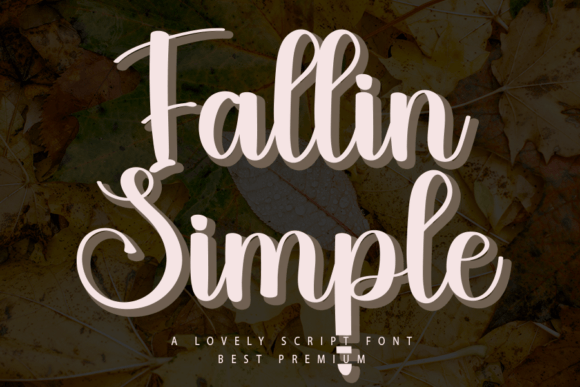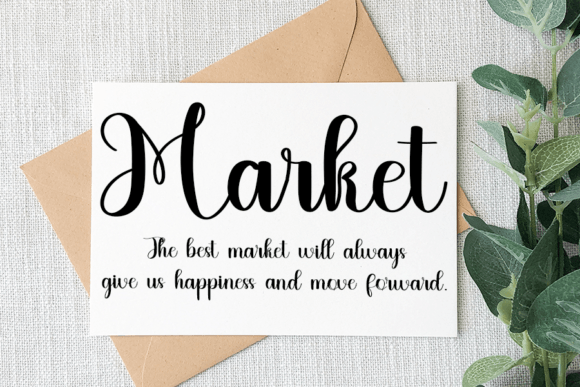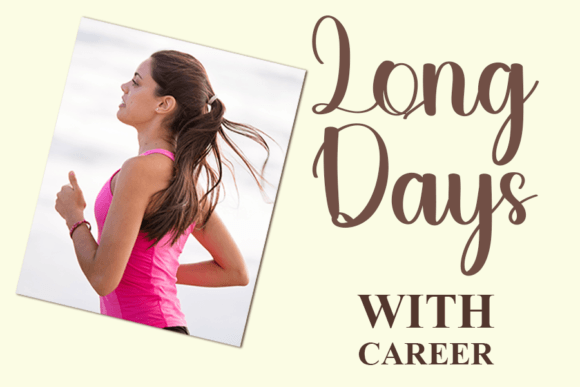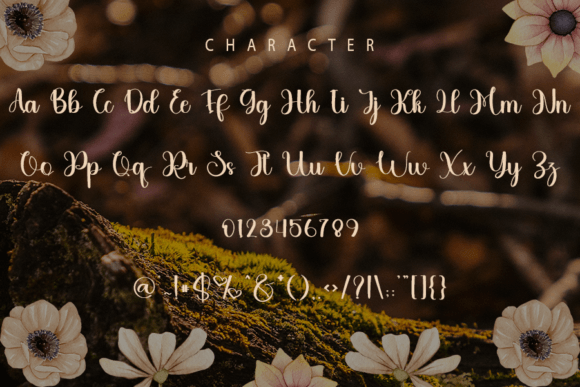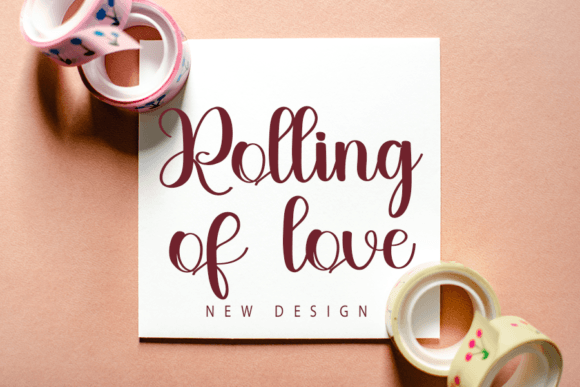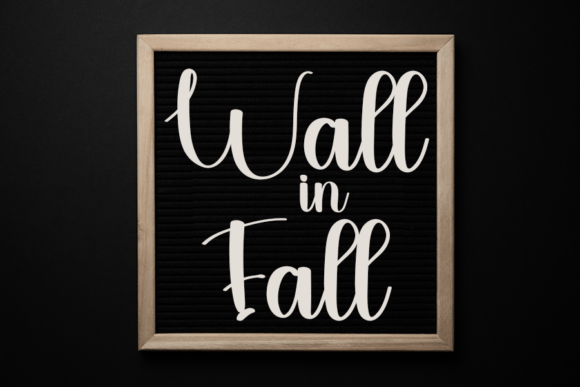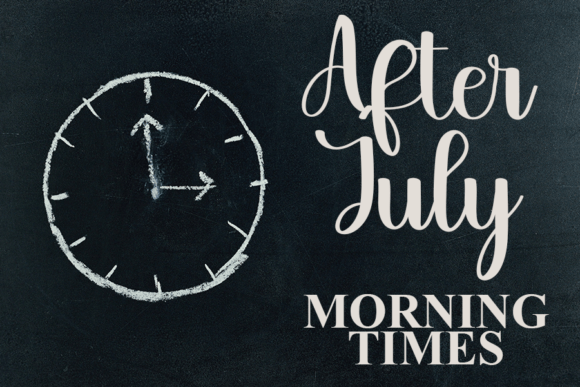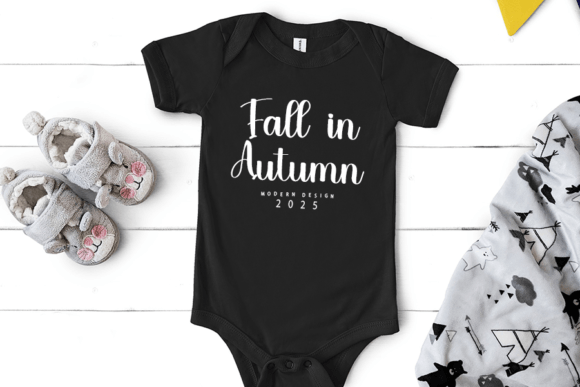
Fallin Simple Font
About Fallin Simple Font
“Fallin Simple” is a beautiful and refined handwritten font that exudes both class and modernity. This versatile font is perfect for various design applications, including logos, branding, invitations, stationery, wedding designs, social media posts, and more. It effortlessly combines elegance with a contemporary aesthetic.
One of the standout features of “Fallin Simple” is its ability to convey a sense of beauty and sophistication. The font’s characters possess a graceful and refined quality that adds character and style to your designs. “Fallin Simple” is a versatile choice for projects where you want to create a classy and modern visual identity.
The flexibility of “Fallin Simple” ensures that it can be effectively used across different creative applications. Whether you’re designing a timeless and elegant logo, crafting stylish and modern branding materials, creating invitations that exude refinement, or exploring any other design project that demands a touch of beauty and class, “Fallin Simple” seamlessly adapts to your creative vision.
“Fallin Simple” stands out as a font that brings a sense of authenticity and modern elegance to your designs. Its handwritten style adds a personal and genuine touch to your projects, making them feel both sophisticated and contemporary. “Fallin Simple” allows you to create designs that effortlessly blend classic beauty with a modern edge.
Incorporating “Fallin Simple” into your design projects will likely result in outcomes that are not only beautiful and refined but also full of modern charm. Its graceful and contemporary appearance makes it an excellent choice for creating designs that resonate with sophistication and style. Embrace the beauty and modern elegance of “Fallin Simple” in your next project, and watch as it elevates your typography and overall design to a level of class and sophistication that leaves a lasting impression.